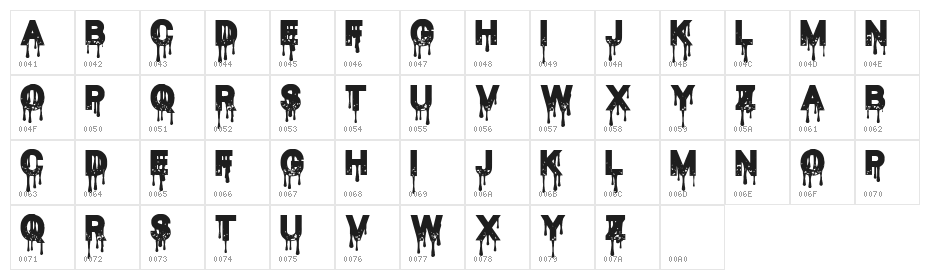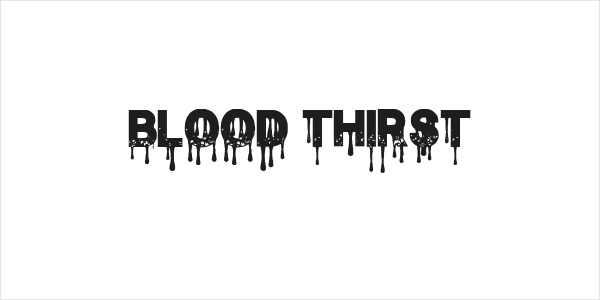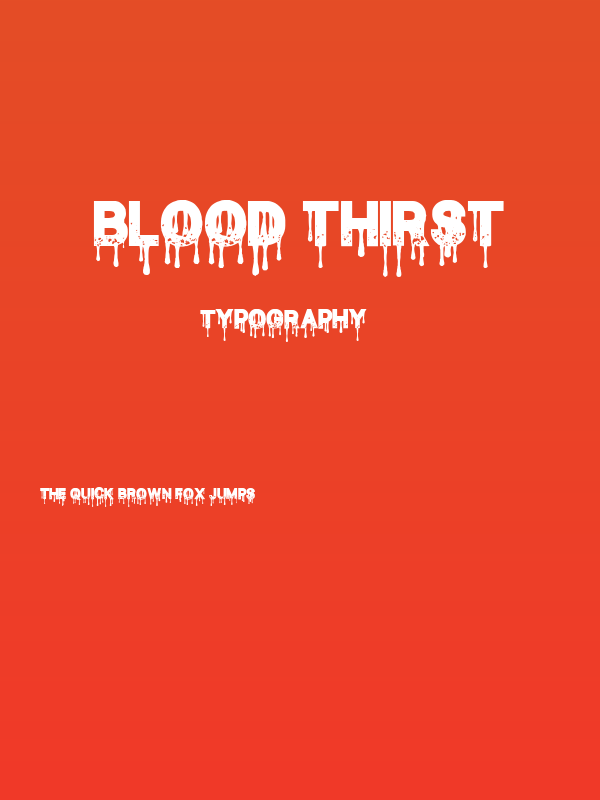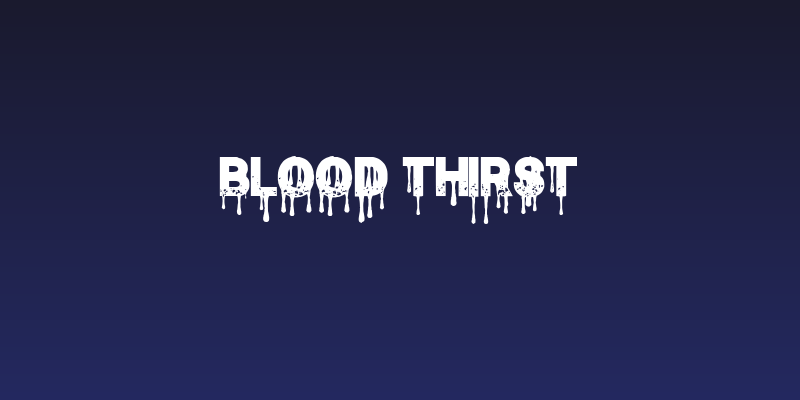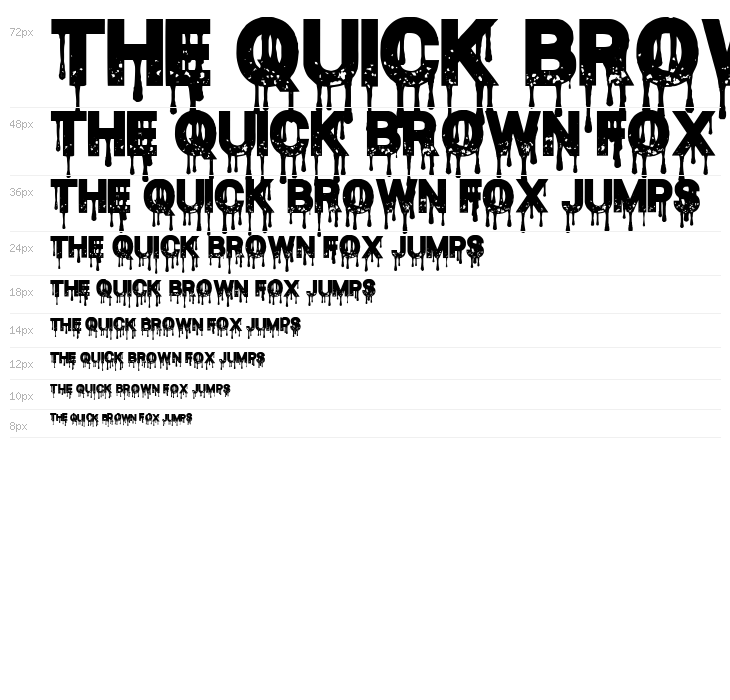
Blood Thirst Font
Blood Thirst Description
This font features a bold and dramatic design with a dripping effect that resembles blood or paint. The uppercase letters are solid and heavy, with drips extending from the bottom, creating a sense of movement and fluidity. The style is highly decorative, making it ideal for themes related to horror, Halloween, or anything requiring a spooky or eerie atmosphere. The unique design captures attention and evokes a sense of mystery and intrigue, perfect for creating a chilling visual impact.
| Proposed Projects | Perfect for Halloween posters, horror movie titles, haunted house flyers, and themed party invitations. |